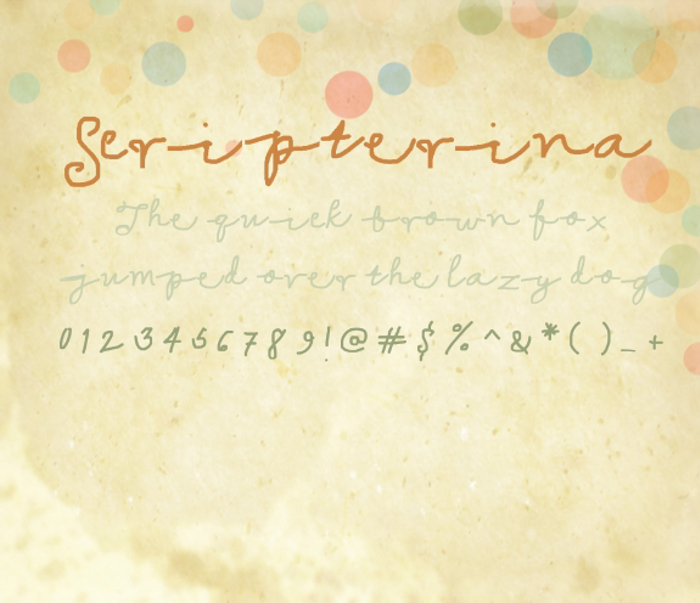
Scripterina Font
Just a happy-go-lucky kind of font you want. The spacing isn't perfect but somehow that lends a certain charm to it.
A light play on the co-existence of archetypal behavior. Hey I'm kidding. Just some doodles for you.